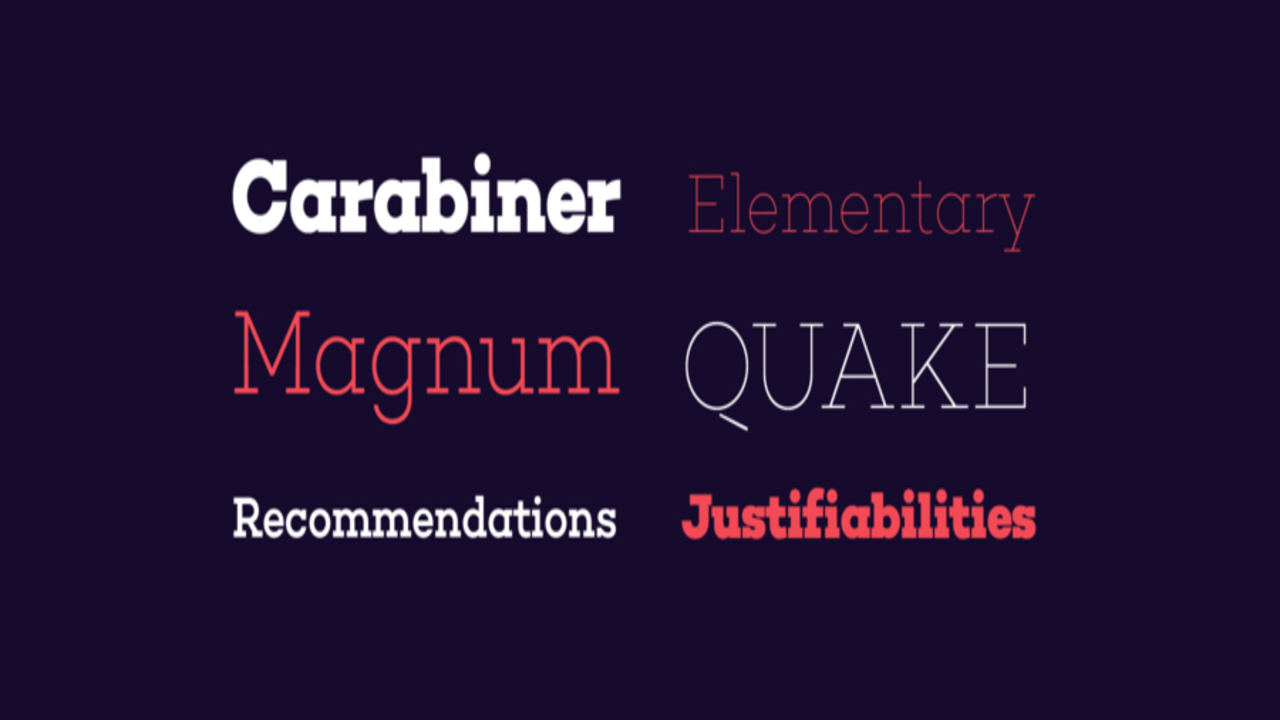
Choplin Font, designed by René Bieder and published in 2014, is a contemporary geometric slab serif typeface. With its clear, modern design and sturdy character, Choplin is well-suited for a variety of graphic design applications.
The font family is built on the same geometric and neutral principles as the Campton Family, but with a distinctive slab serif twist that gives it a unique presence.
The Choplin Font Family
Choplin Font offers a range of 18 styles, including nine weights and their corresponding italics. Its design is rooted in geometric simplicity and neutrality, providing a robust and versatile typeface for various design needs.
The font includes numerous OpenType features (Stylistic Alternates, Ligatures, Fractions, Old-Style Numbers, Arrows) that add flexibility and uniqueness to any design project. Free Demos are Choplin Extra Light DEMO and Choplin Medium DEMO
Notable Uses: Choplin Font
- Editorial Design
- Corporate Branding
- Interaction Design
- Product Design
- Logo Creation
- Brochures and Flyers
- Headlines and Titles
Choplin Font’s modern and geometric style makes it ideal for both print and digital applications. Its sturdy yet refined design enhances readability and visual impact, making it suitable for everything from editorial layouts to corporate branding.
Final Words
Choplin Font stands out with its geometric slab serif design and modern clarity. Designed by René Bieder, it offers 20 styles, including nine weights and corresponding italics.
The font’s geometric structure and extensive OpenType features make it a flexible and valuable tool for a wide range of design applications. Whether for editorial design, corporate branding, or web development, Choplin provides a robust and stylish solution for various typographic needs.
1.What Are The Limitations Of Choplin Font In Digital Design?
Choplin’s geometric slab serif style may clash with more organic or traditional designs and, due to its bold slab features, might not suit very small text sizes.
3.What Are The Key Differences Between Choplin Font And Other Similar Fonts?
Choplin is a geometric slab serif with sharper details compared to Campton’s more neutral geometric sans-serif style, offering a unique slab serif character.
4.How To Integrate Choplin Font Into A Brand Identity?
Leverage Choplin’s clean, geometric style for modern, professional brands, pairing it with complementary fonts that contrast or harmonize with its slab serif design.
5.What Are The Common Misconceptions About Choplin Font?
Choplin isn’t just a variant of Campton but a distinct geometric slab serif with its own character, offering more robust slab details and extended OpenType features.
6.What Is The Font Pairing For The Choplin Font?
Pair Choplin with sans-serifs like Montserrat or Lato for a modern look, or with serif fonts like Merriweather for contrast and versatility in print and digital applications.
7.What Are The Different Weights Available In Choplin Font?
Choplin Font is available in the following weights: Extra Light, Light, Regular, Medium, Semi Bold, Bold, Extra Bold, and Black, with corresponding Italics.
8.What Are The Best Pairings For Choplin Font?
Pair Choplin with clean sans-serifs like Helvetica or modern serifs like Playfair Display for a sophisticated and balanced design.